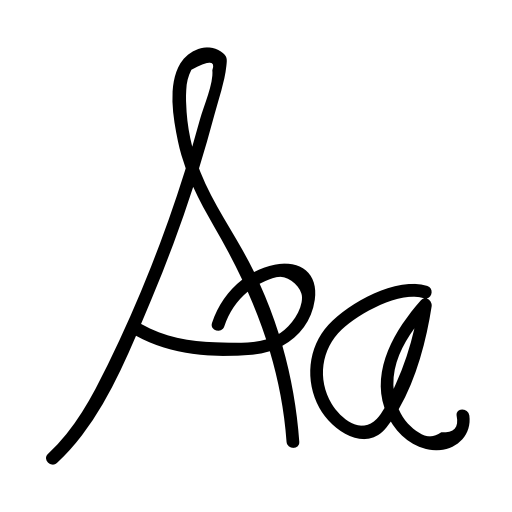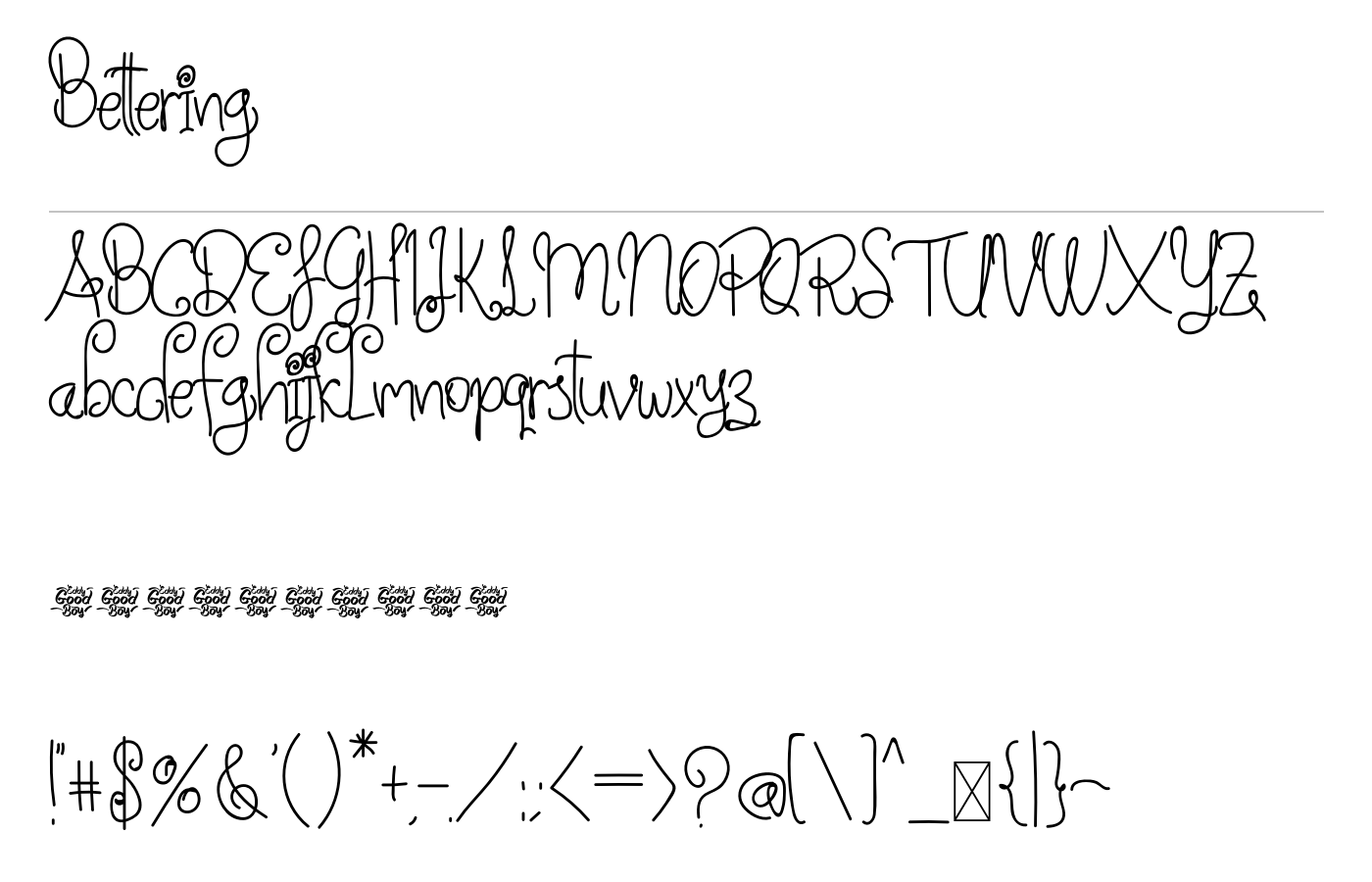
Bettering Font is a playful, hand-drawn script with quirky, looping letterforms that give it a whimsical and friendly personality. Its thin, delicate strokes and unique curl details make it perfect for creative, informal designs like invitations, greeting cards, or brands seeking a charming and personal touch. This font works best for headlines or decorative purposes where a casual, artistic vibe is desired.
Bettering Font